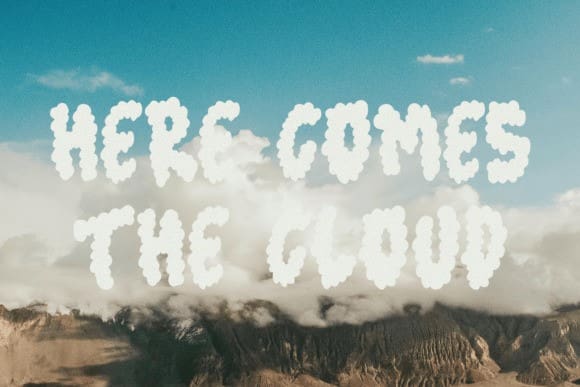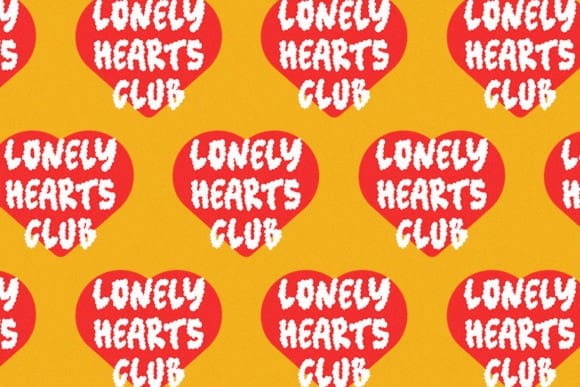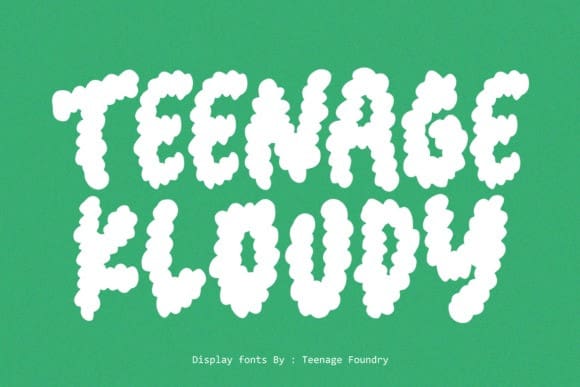
Teenage Kloudy Font
Teenage Kloudy Font is a unique and whimsical display font that resembles fluffy clouds floating in the sky. The soft curves and puffy shapes of each letter give off a sense of lightness and serenity, making it perfect for designs targeting a teenage or youthful audience.
Whether you’re creating invitations, posters, or social media graphics, Teenage Kloudy will bring a sense of joy and wonder to your typography.